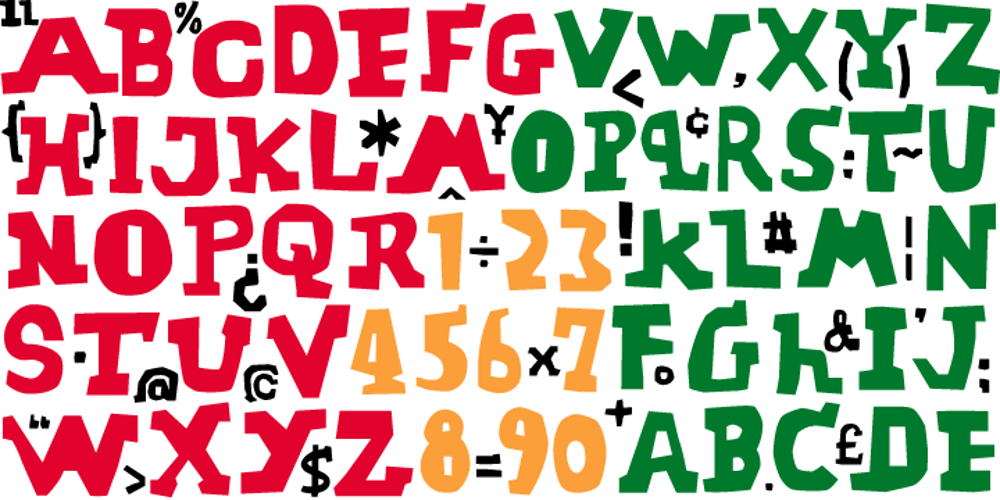
No Liming Font Family was designed by Tim Barnes and published by chicken. No Liming contains 1 styles and family package options. A chunky, laid-back typeface inspired by a hand-painted notice on the doors of a mechanic’s workshop in Plymouth, Tobago. Two different mostly-uppercase alphabets in one font help to keep things loose. ‘Liming’? hanging out, drinking rum, shooting the breeze…